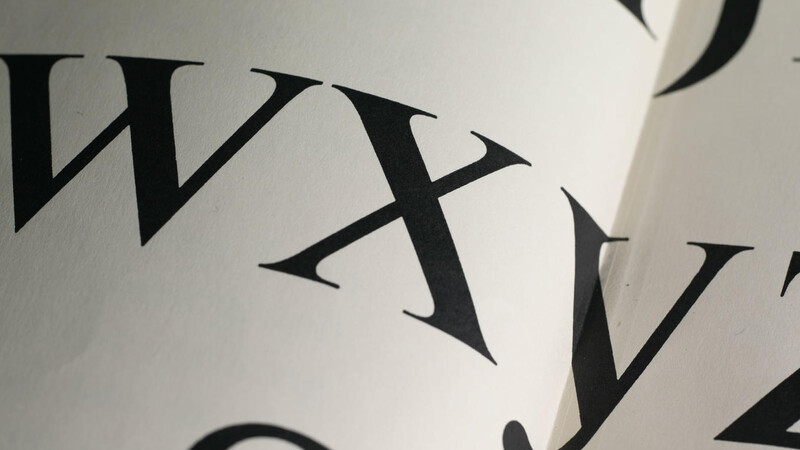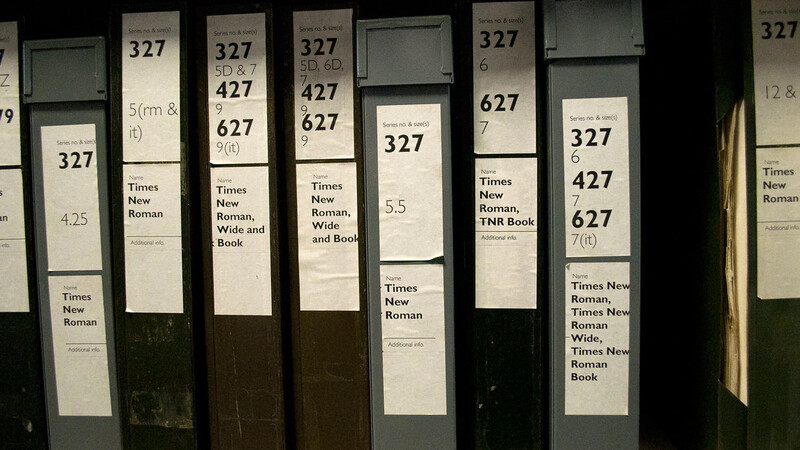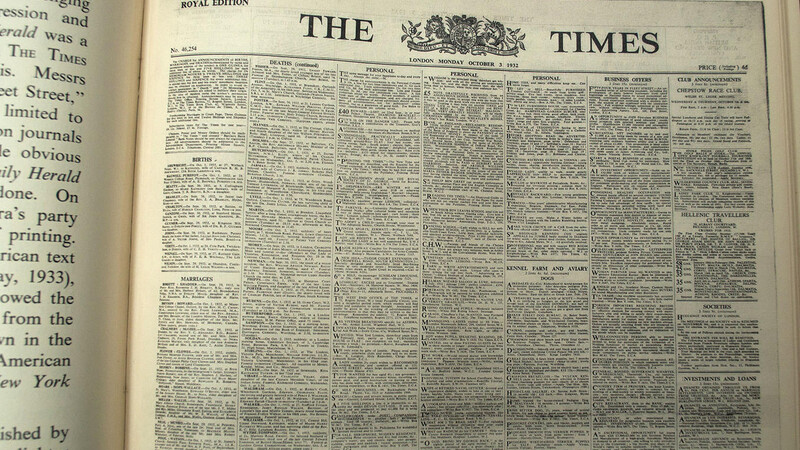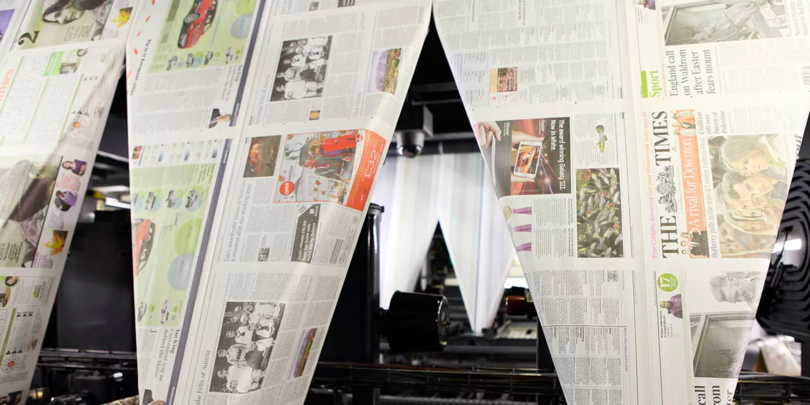
Times Modern and the modern Times
When your business is the printed word, your use of type is serious business. From the introduction of the Times New Roman® typeface in 1932 through to its Times Modern fonts today, The Times newspaper’s use of type has been a critical and iconic aspect of its brand.
There’s a tendency when talking about typefaces to focus on the little details. However, this is a story about the life cycle of typefaces, specifically the way typefaces have been a crucial part of the life cycle of The Times of London, a trusted brand that has carefully cultivated its use of typography for decades.
The Times has evolved over time and has periodically felt the need to update its type to address the changing production methods and context. ”
Background
This story begins in 1930, when Stanley Morison wrote a stern critique to the publishers of The Times about the way they used typography in the newspaper. Morison, the typographic advisor for British Monotype, warned that the authority and respectability of the newspaper was being betrayed by its use of a variety of typical Caslon™ styles. These didn’t show off the fine print quality of the paper, and they were a little old-fashioned for a paper that respected its history but also took pride in being contemporary. Morison described typographic qualities that could instead enhance what the paper was about, so they could convey the spirit of the paper visually as well as editorially. This was the real start of the conscious typographic branding of The Times.
This combination of history and modernity is as true for The Times today as it was in 1930. The paper has been around for a very, very long time—since 1785, when it was known as The Daily Universal Register—and it prides itself on being the newspaper of record for the U.K. Oct. 3, 1932 was the day that The Times’ old look was swept aside for a crisp, modern banner and a brand new type family created by Monotype under Morison’s direction. This desire for a connection to history while being crisp and modern resulted in the Times New Roman typeface, which many people—particularly those outside the U.K.—do not realize gets its name from being the new typeface for The Times.
Times New Roman was a success for The Times for the brief period when it was its exclusive property, and once Monotype introduced it for other customers and type manufacturers, it became wildly successful for everyone else, too. It can now be argued that the ubiquity of the Times New Roman typeface today—in its many forms for many uses in many media—is a brand that is bigger than even The Times itself. In the highly regarded book Anatomy of a Typeface, Alexander S. Lawson wrote, “Of all the typefaces developed during the past 70 years, Times Roman is the one most frequently singled out as typifying the twentieth century.”
The challenge
The Times has evolved over time and has periodically felt the need to update its type to address the changing production methods and context. For all these changes in the type families, all the designs share a “DNA,” a certain crispness and authority that remains true to what The Times is about. This brings us to the current family—Times Modern, originally designed by Neville Brody’s Research Studios in 2006 (with a variety of new weights and styles later designed by Monotype). Times Modern proved to be another success for The Times, and after a few months of working with this new design and discovering how it behaved and what the ongoing challenges were, The Times asked Monotype to expand the family. Since then, Monotype has also been asked to maintain the continuity between print and pixel for its readers, online and off.
The solution
Robin Nicholas, Patrick Giasson, and Alice Savoie at Monotype took the family in new directions, particularly with an extreme range of weights for display work, and the addition of italic styles, which were not included in the original set. Times Classic, the family introduced in 2002, is still used for the body text, but the sharper, streamlined Times Modern family sets the tone.
Typography has allowed The Times to carry its brand into other media, too. Moving past print, its digital versions are becoming a bigger part of what they offer. In the iPad edition of The Times, the typography is once again a key element of the experience. The look and content of the print paper is carefully curated, and The Times does not wish to abandon that effort and ask its readers to figure out a new experience in its app. To ensure the fidelity and quality of the typography, the iPad app uses real fonts rather than JPEG or PDF images of its pages. The text reflows when the orientation switches from vertical to horizontal, and the type remains crisp and legible. By having its own fonts embedded in the app, the screen rendering feels consistent with other iPad apps, yet the typographic detailing is undeniably that of The Times.